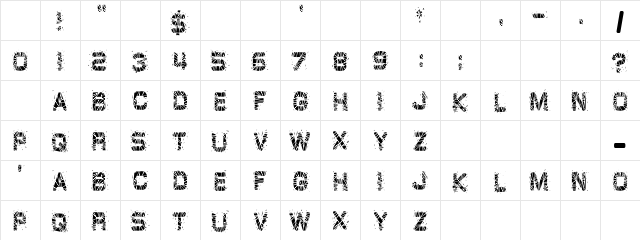
Complete GlazKrak Busted glyph index. Displaying only characters natively supported by GlazKrak Busted font.
GlazKrak is a composed and adaptable typeface that performs quietly and consistently across a wide range of design contexts.